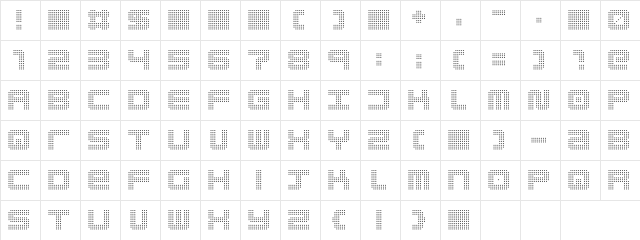
pizzo Light
Design Context for pizzo
pizzo is a composed and adaptable typeface that performs quietly and consistently across a wide range of design contexts. Its slender proportions lend an understated elegance to any composition.